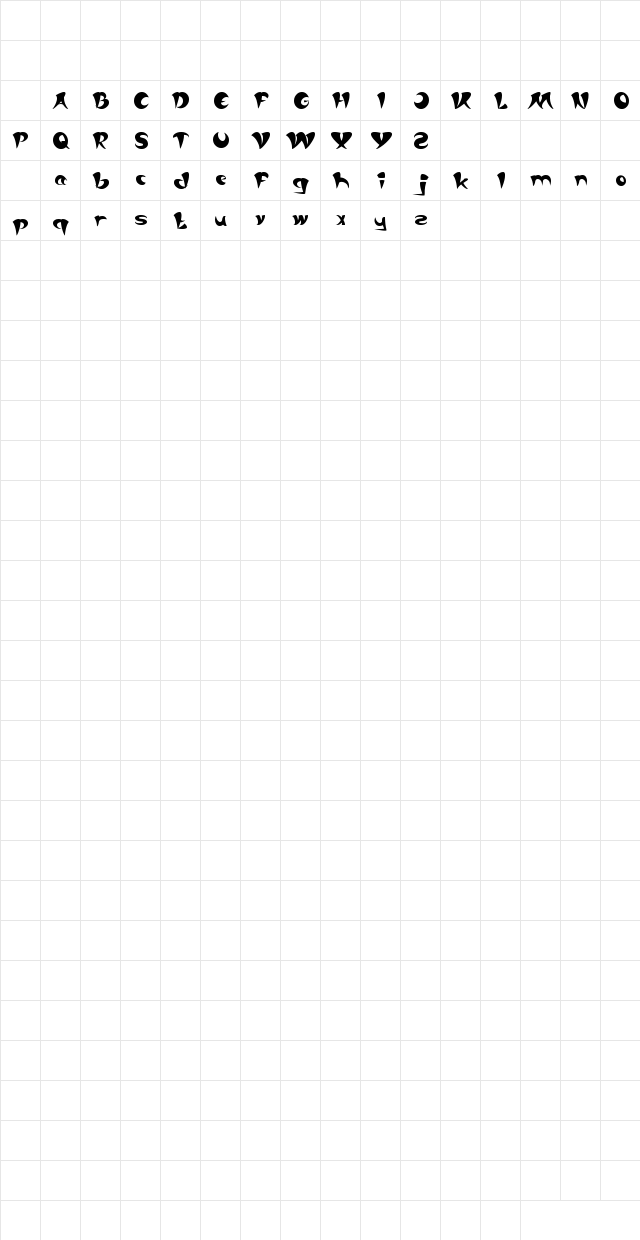
ASIA PACIFIC Regular Free Font
ASIA PACIFIC Regular
Complete ASIA PACIFIC Regular glyph index. Displaying only characters natively supported by ASIA PACIFIC Regular font.
Design Context for ASIA PACIFIC
ASIA PACIFIC is a composed and adaptable typeface that performs quietly and consistently across a wide range of design contexts.